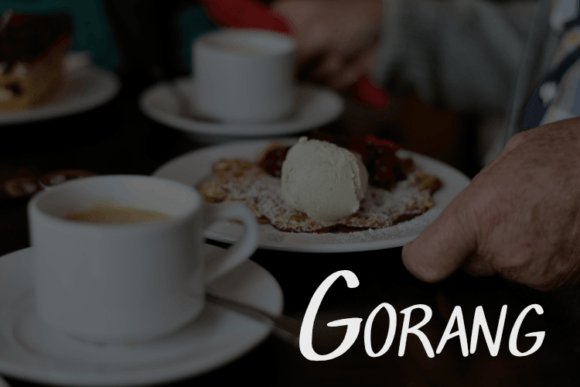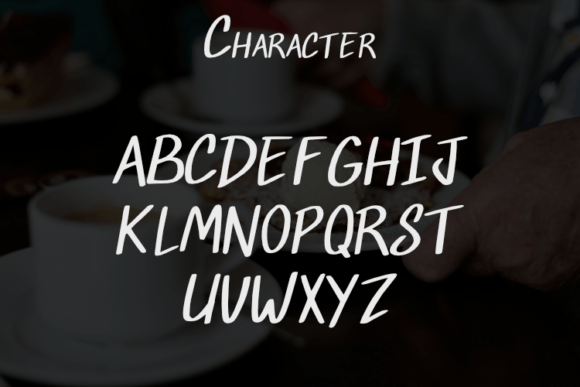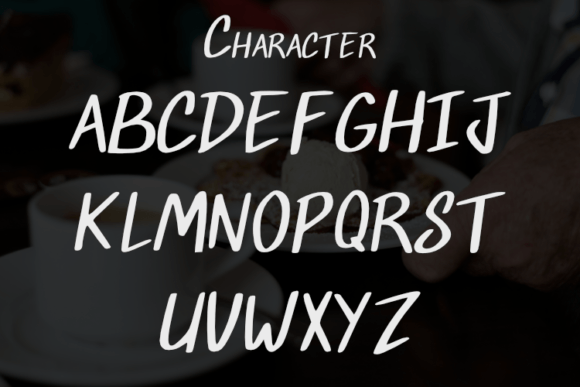
Gorang Font
About Gorang Font
Gorang emerges as a script-typeface, combining simplicity with a modern aesthetic to create a versatile and stylish font. This typeface is designed to excel in various applications, making it a perfect choice for a range of design projects.
The simplicity of Gorang’s style ensures clarity and legibility, while its modern look adds a touch of contemporary elegance. The clean lines and well-defined characters make Gorang suitable for a variety of design purposes, ranging from elegant and luxurious logos to book or movie design titles.
The adaptability of Gorang shines through in its ability to enhance diverse projects. Whether you’re working on fashion brands, magazines, clothing designs, or quotes, this typeface effortlessly integrates into the visual language of your creations. Its versatility makes it a valuable asset for designers seeking a font that can adapt to different design contexts.
Gorang’s sleek and modern appearance aligns with current design trends, making it a relevant and contemporary choice. The typeface is not just a functional element; it contributes to the overall aesthetic of your design, adding a touch of sophistication and style.
Consider Gorang for your projects where an elegant and modern script is desired. Its understated yet impactful design makes it a suitable candidate for creating logos that exude luxury, designing stylish book or movie titles, and crafting visually appealing fashion-related materials. Let Gorang be the stylish companion to your creative endeavors, bringing a touch of modern elegance to your designs.